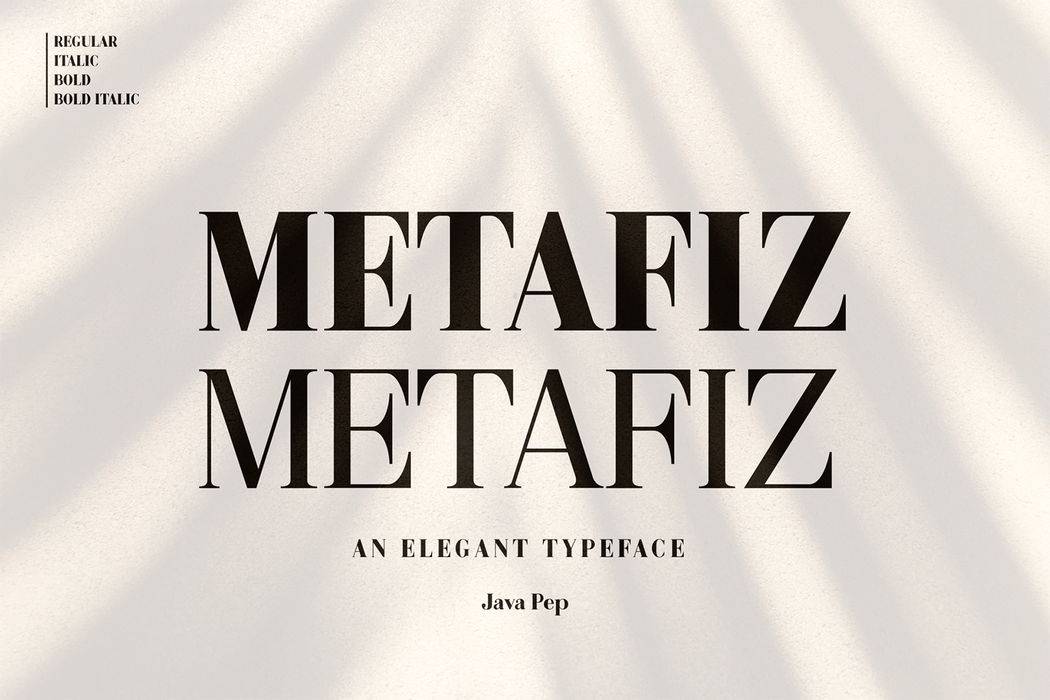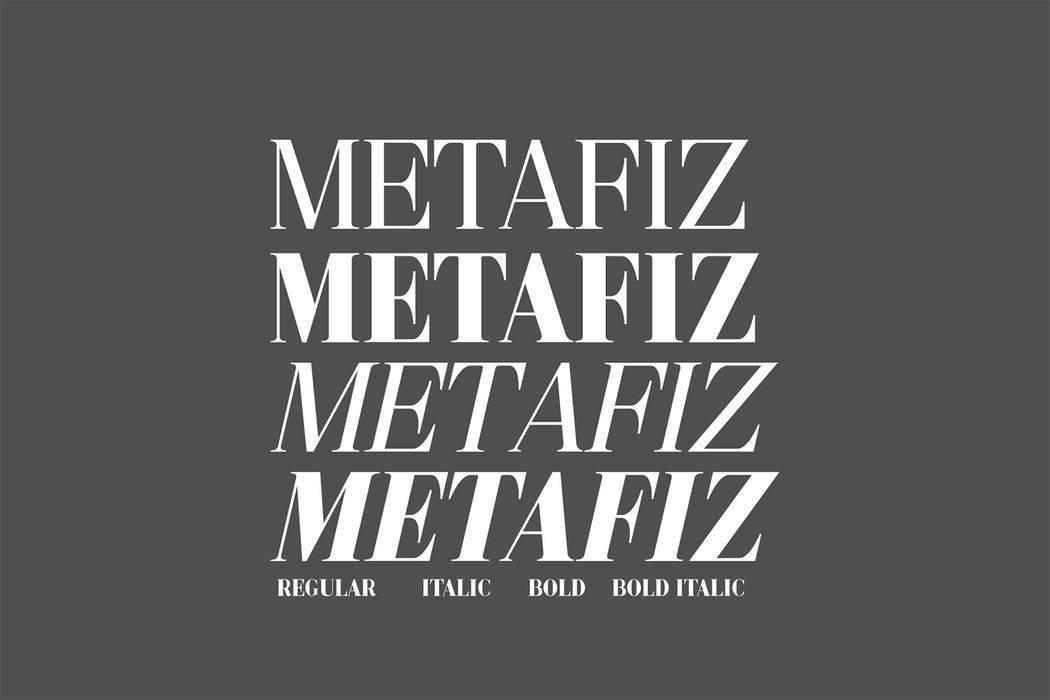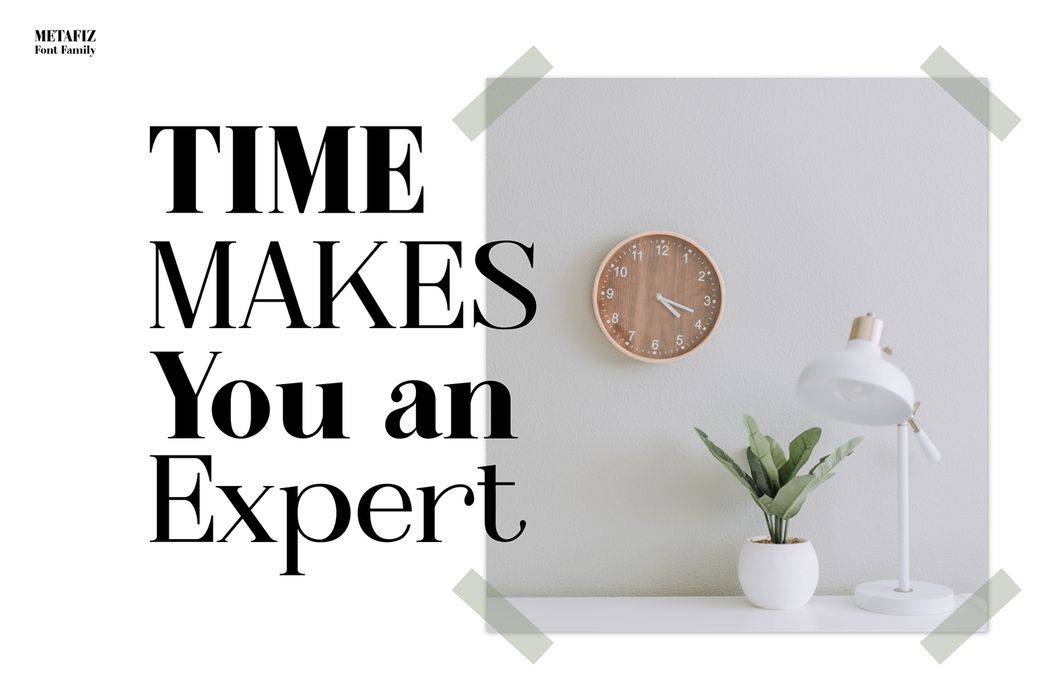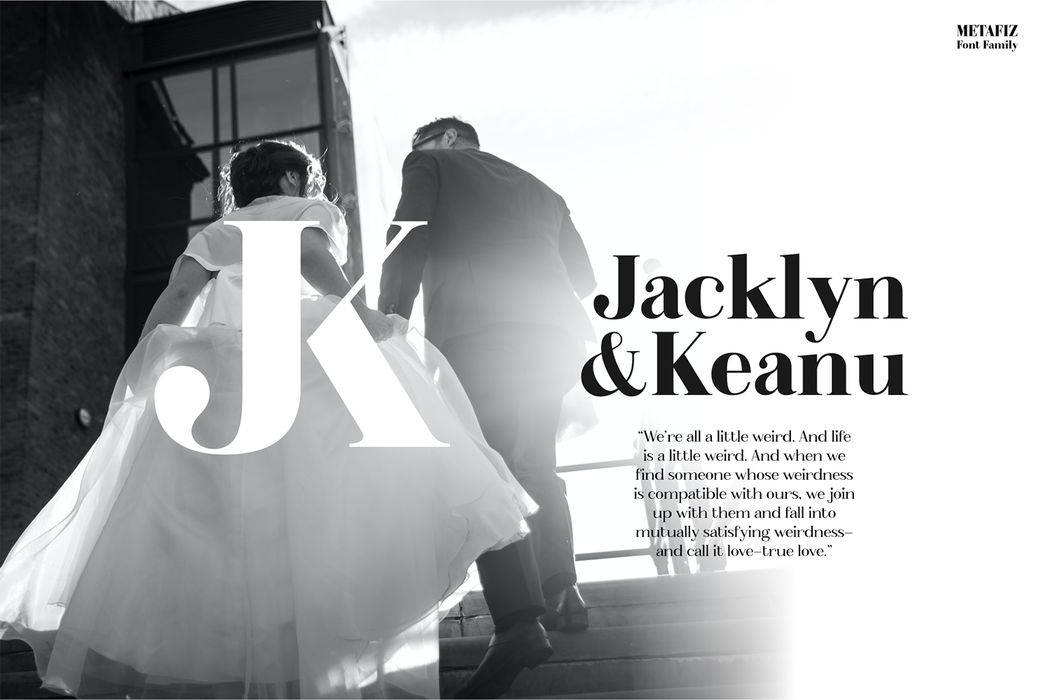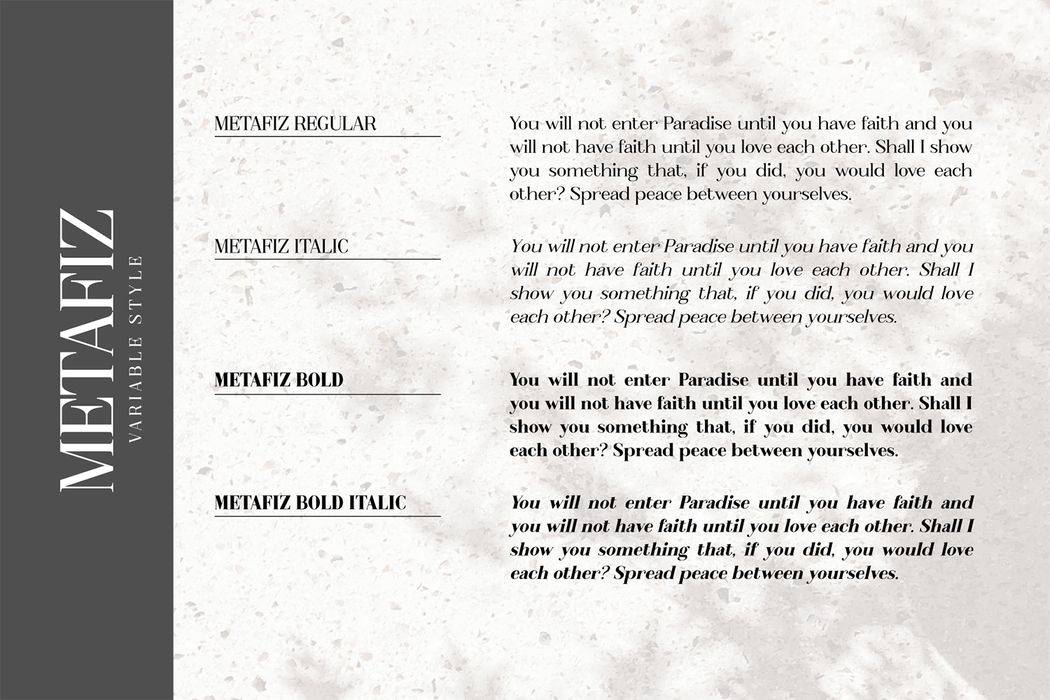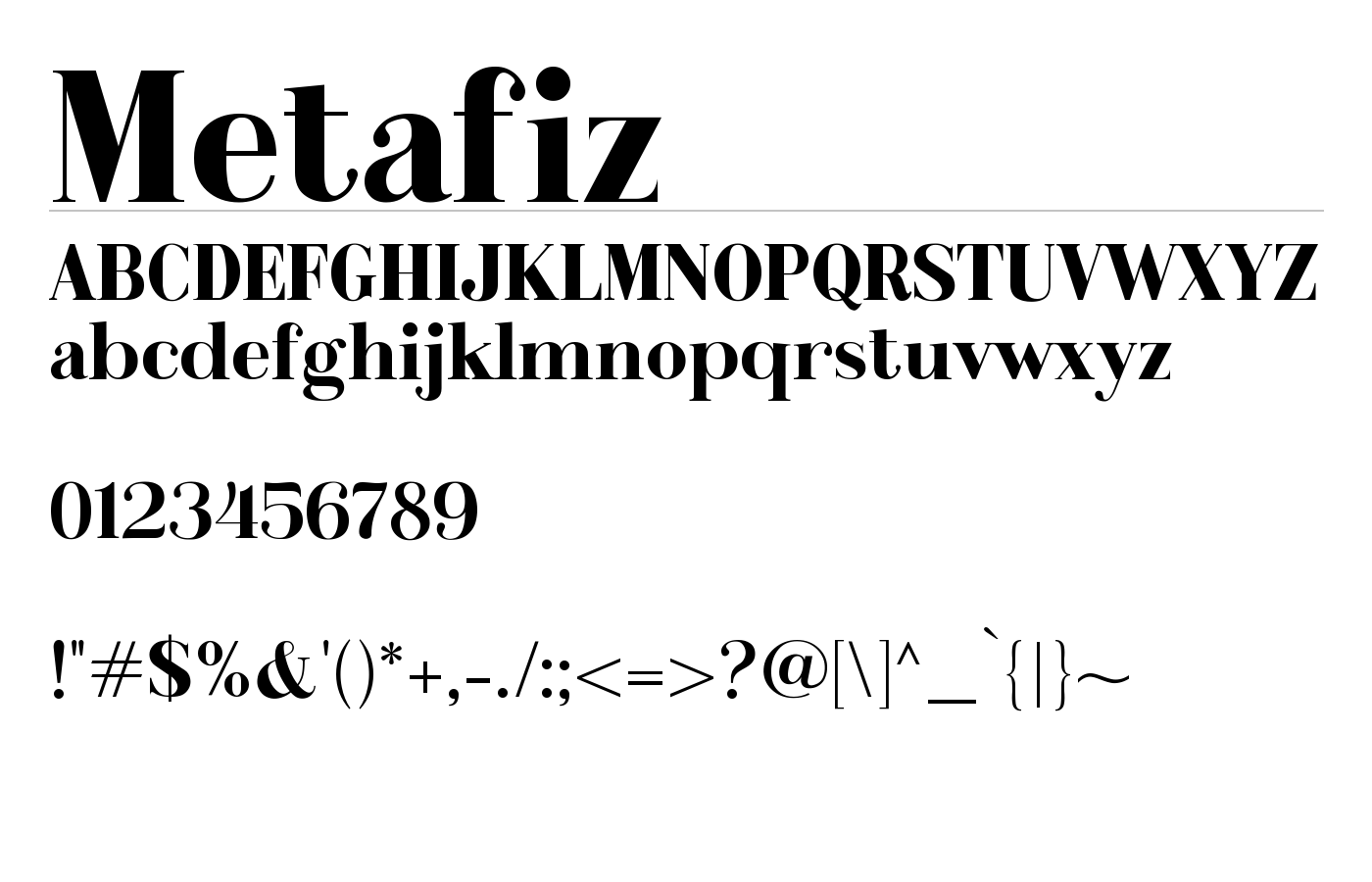
Metafiz Elegant is a refined serif font with strong contrasts between thick and thin strokes, giving it a sophisticated and classic appeal. Its sharp, bracketed serifs and high contrast design make it perfect for luxury branding, editorial headlines, and elegant packaging where a timeless and formal impression is desired. This font combines traditional style with modern clarity, making it ideal for projects that need a touch of prestige and authority.
Metafiz Elegant Font
About Metafiz Elegant Font